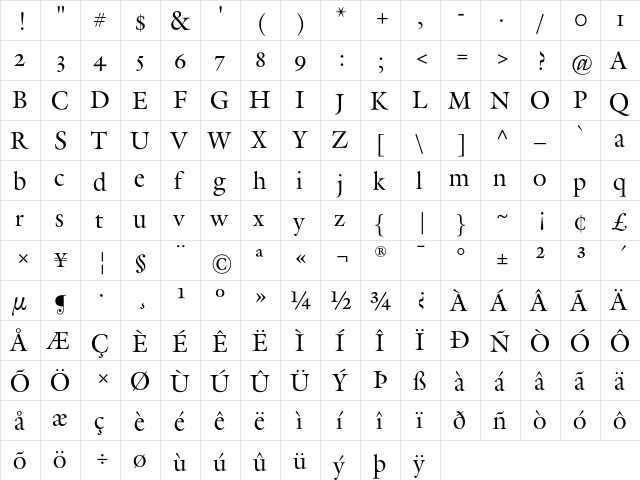
GalliardOStyCC Regular
Design Context for GalliardOStyCC Typeface
GalliardOStyCC is a composed and adaptable typeface that performs quietly and consistently across a wide range of design contexts.